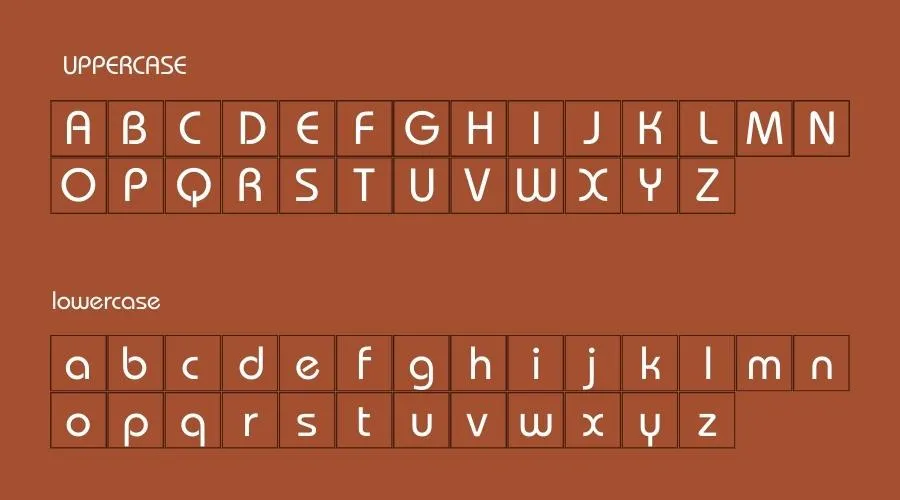
About Bauhaus Font
This article presents to you a very elegant sans-serif texture family. The Bauhaus font was developed by Joe Taylor and published through Fotostar in 1960. These typeface ties were broken by fotostar foundry and the current variation of this texture is Bauhaus 93.
Due to its neat and good-looking texture. You can easily compare it with different other fonts and make attractive designs. A similar font of this typeface is Helvetica Neue Font, which also has great pairing quality with other font styles.